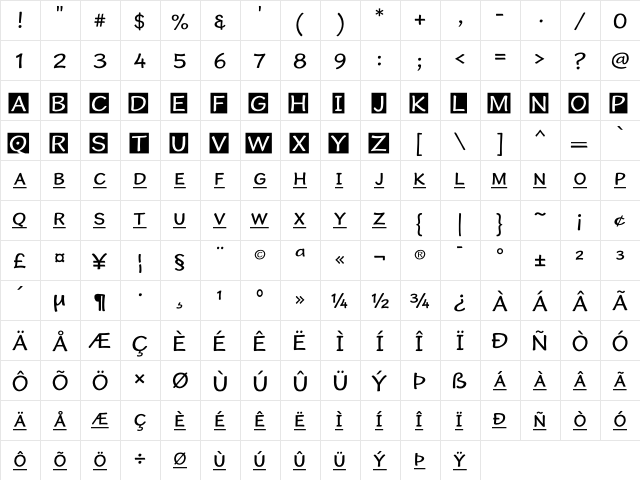
Cordin Freebie 2a Regular
Design Context for Cordin Freebie 2a Typeface
Cordin Freebie 2a offers clean, dependable letterforms without strong stylistic allegiance, making it a practical choice for designers who need flexibility.